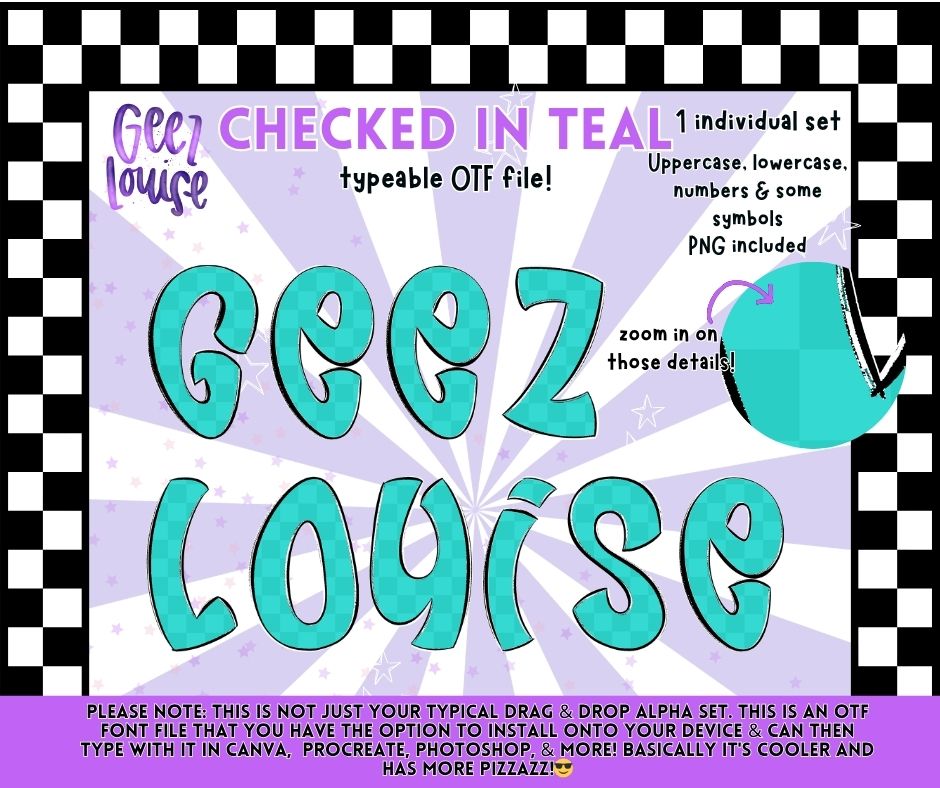
Checked in Teal OTF Font | Typeable Checker Alpha | Teal Aesthetic Font + PNG Set | Commercial Use
Checked in Teal is a smooth, checker-inspired typeable OTF font that brings just the right amount of detail without overwhelming your design. It’s got that subtle texture that hits different when you zoom in 👀
Low-key detail. High-key impact 🔥